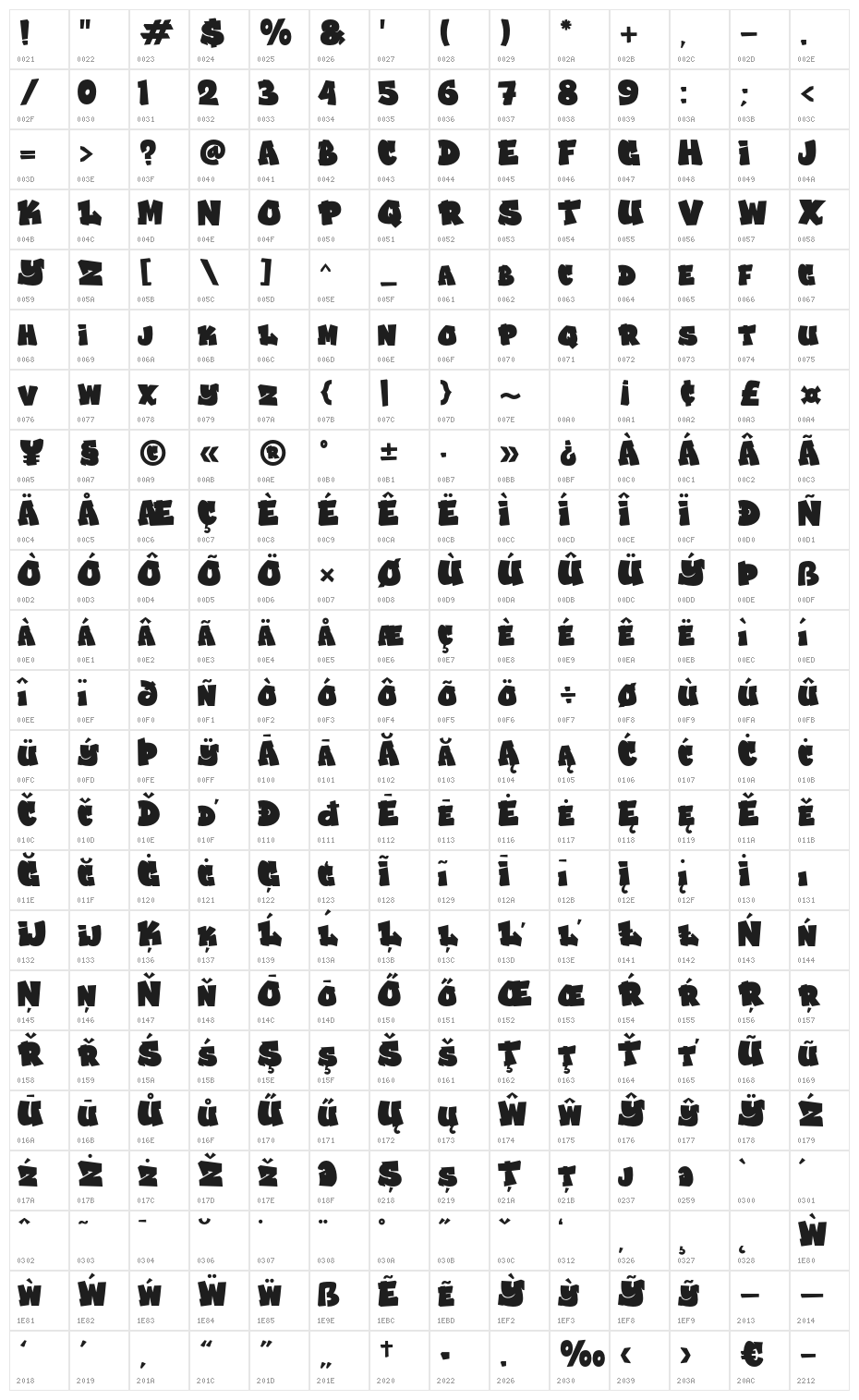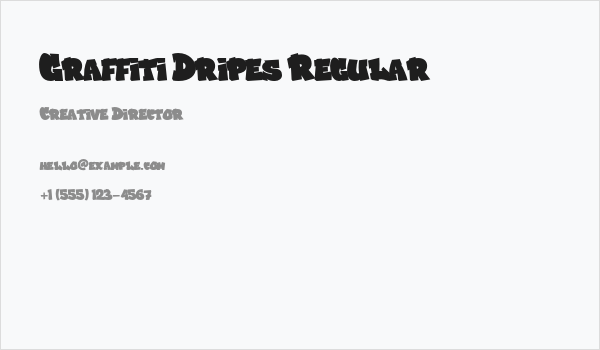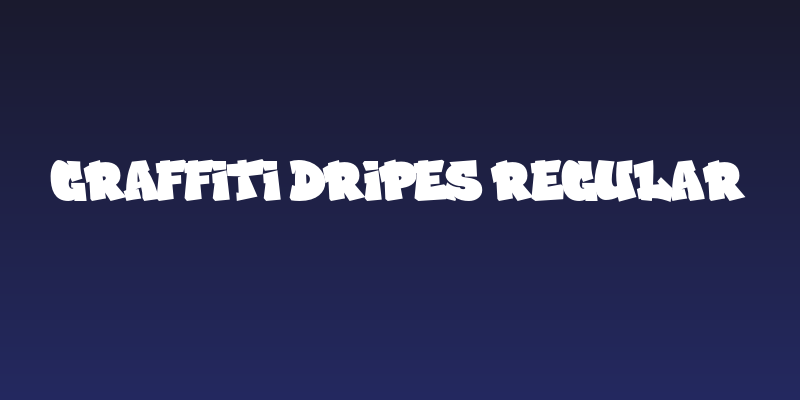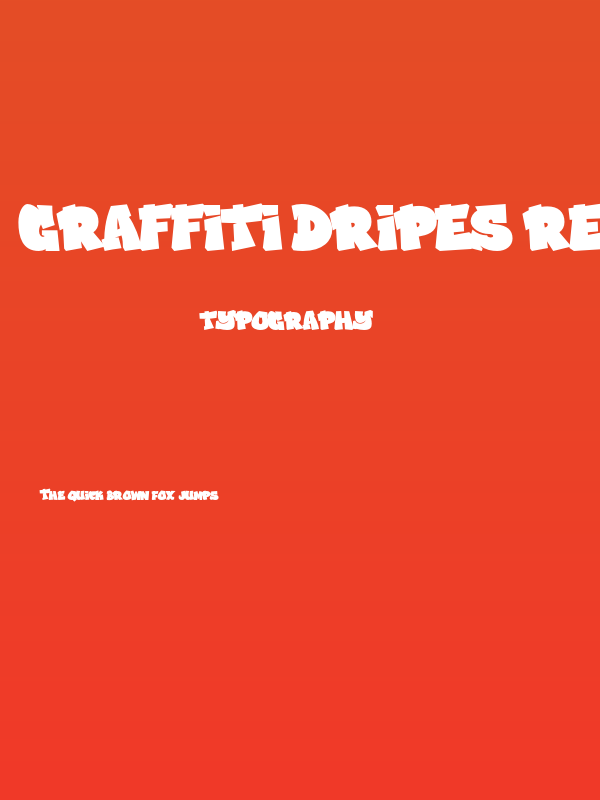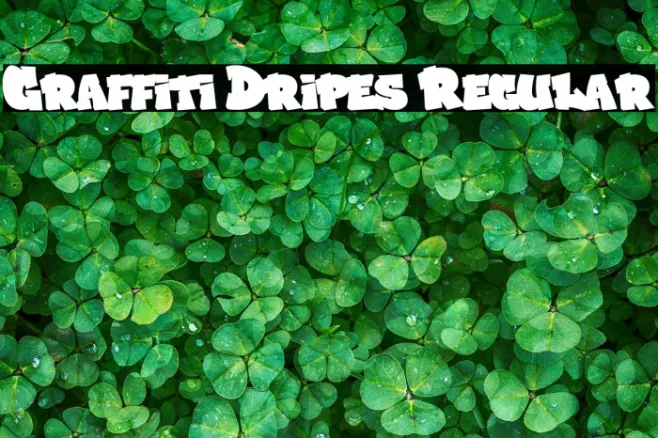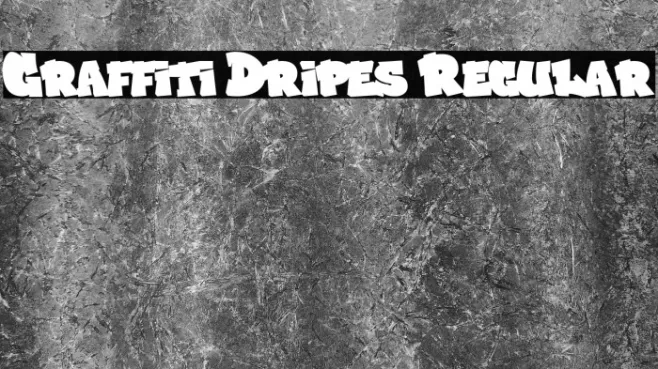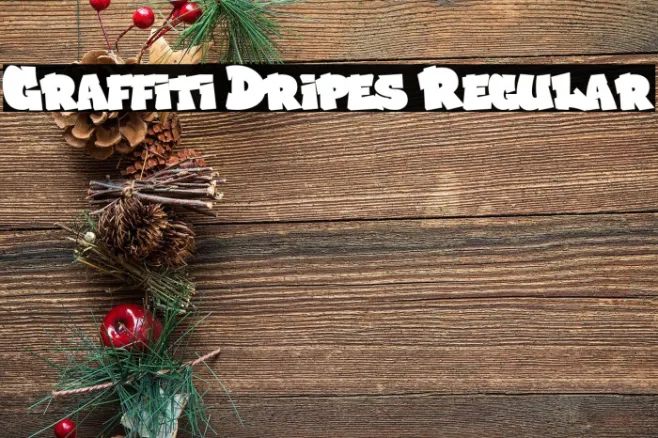
Graffiti Dripes Regular Font
| Gesamtstil | Urban, Energetic, Rebellious |
| Vorgeschlagene Projekte | Ideal for street art designs, urban-themed posters, music album covers, and edgy branding projects. |